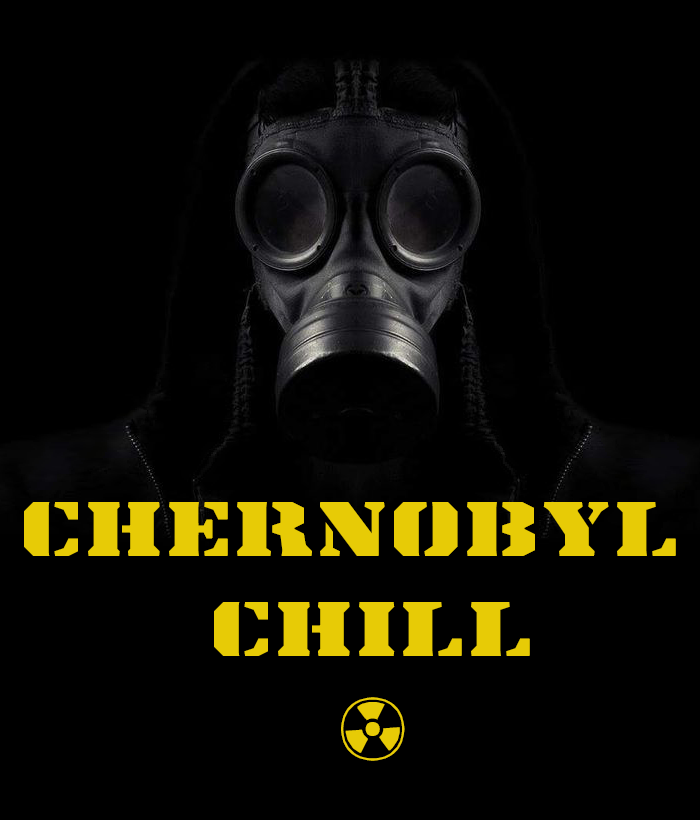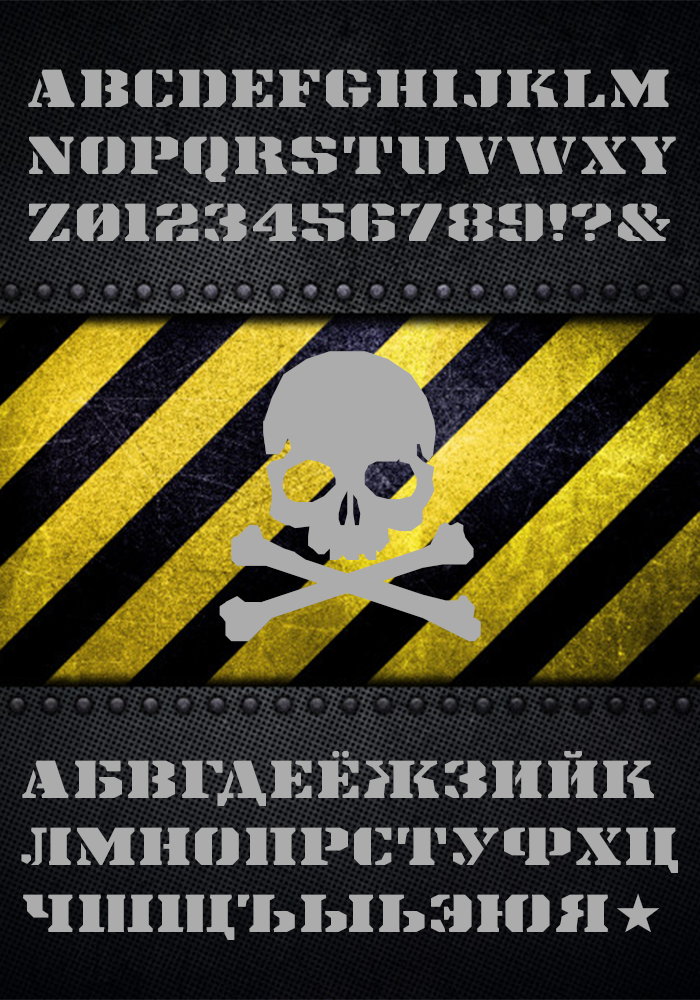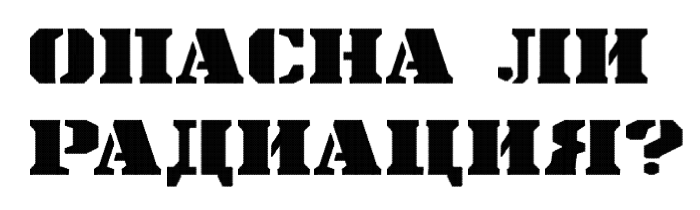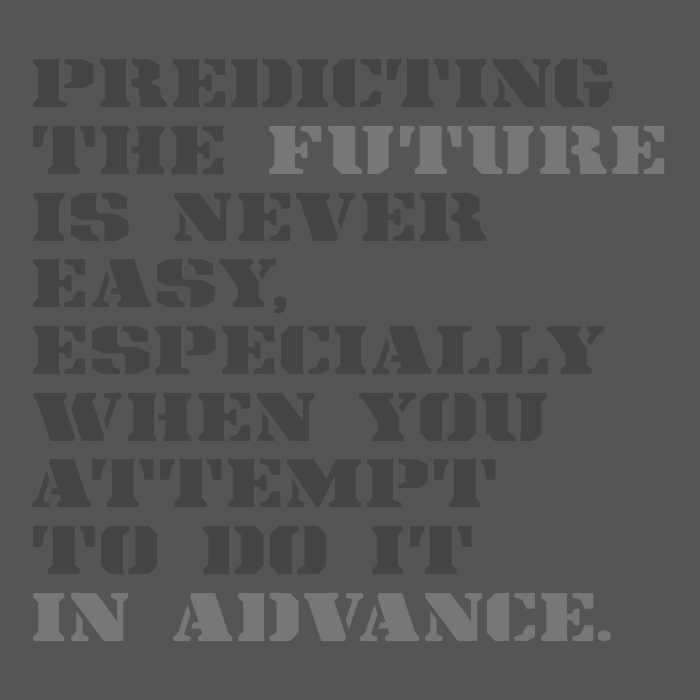
• This is a military-style stencil font inspired by the original Stencil-Gothic face (by John West c. 1885), Ironmonger (by John Downer, 1991-93), and Pediker (by Kazimir Samoscanec, 2013). The latter one is a revival of a stencil face of unknown origin. Sorry for the dystopian future. I hope it will never happen.
"History doesn't repeat itself, but it often rhymes." In the not too distant future - following the pandemic, and the deepest recession in memory - once again, armed conflict breaks out between the major powers, and quickly escalates into total war: a full-scale nuclear armageddon! The subsequent nuclear winter may last for centuries, making agriculture all but impossible. Until the radiation slowly, gradually drops to safe levels a new dark age keeps the entire northern hemisphere frozen in time. It is Chernobyl Chill.
Welcome back, dear master, and nice to see you here again! Great stencil, solid, balanced and contundent, a great work as usual.
A perfectly executed stencil.
this is so cool
I find it interesting that you used that “Л” with that “Д”. Normally they’d both be in the same style. May I suggest a form for: “Л” where it is just like: “A” but without the crossbar?
Otherwise, very nice. I’d see myself using this font in the future.
Great seeing new work from you here, Frodo! Pro quality throughout the character set. Nice samples too!
Nice font!
Yep, just a random Kiwi who knows Russian for no good reason passing through.
Yeah, it is funny how often “Л” is soft in Russian. My favourite Russian word even has what you’re talking about — “бельэтаж”.
(Fluent in English and from Hungary?) lol
@TH3_C0N-MAN: I think, I solved the problem with the “Л” and “Д”. See the sample. The Cyrillic set now fully supports the Russian, Bulgarian, Belarusian, Ukrainian, and Rusyn alphabets.
Очень хорошо. Could “ў” have the same diacritic as “й”?
@ TH3_C0N-MAN: You have sharp eyes. The letter Ў (Cyrillic Short U) has been corrected. Thanks. I would love to support Serbian and Montenegrin too, but there are a few unique letters in their alphabet I have no idea how to make them properly (Ђ, Ћ, Џ). Anyway, first I'll make a decent Æ glyph to keep the Danish people happy.
Hey. Like this revival, I also often added Cyrillic letters to existing fonts, until the good fonts with the ability to clone were over and it became boring for me. TH3_C0N-MAN is right, but I do not really like your Л shape, it is closer to the Bodoni fonts and the pointed pen, on the other hand it is considered the most modern and leaves fewer white holes in the set. I must also note that the absence of an upper serif in the Ф, the size of the ovals can be safely sacrificed.
Interesting name, were you inspired by a recent HBO series? By name I thought that you mean the relaxation that the atmosphere of post-apocalypse brings (personally for me), or walks through Chernobyl (or other abandoned places) that some people love and practice (this is called stalkering (not stalking)).
Stalker was a great film by Andréi Tarkovski. This fantastic movie marked me when I saw it, years before Chernobyl.
Про «л»: Don’t you think he’s done enough work on that already? I think it’s great.
Про «Ф»: If you were to change it, it could just be two “þ”, one reversed.
Concerning the «Л»: yes, I know it's not perfect, but it works well in text. For now, it is serviceable. There are a few more letters I'm not happy with: the «У» is too slender; the Ч, Ъ, Ь, Ы are too robust compared to the Б and В; the «З» need more work too. You have to understand it is a long process to find the best shapes and proportions and achieve the perfect harmony and balance between the letters. I started this project well before the 2017 Serif Competition, and could not finish the Latin set by the deadline. The letters just simply were not there; they were not working together.
Quote by Bernard M. Baruch, financier and philanthropist.
that first comment sounds frighteningly plausible, given the state of the world today
but yea, let's hope this does not happen